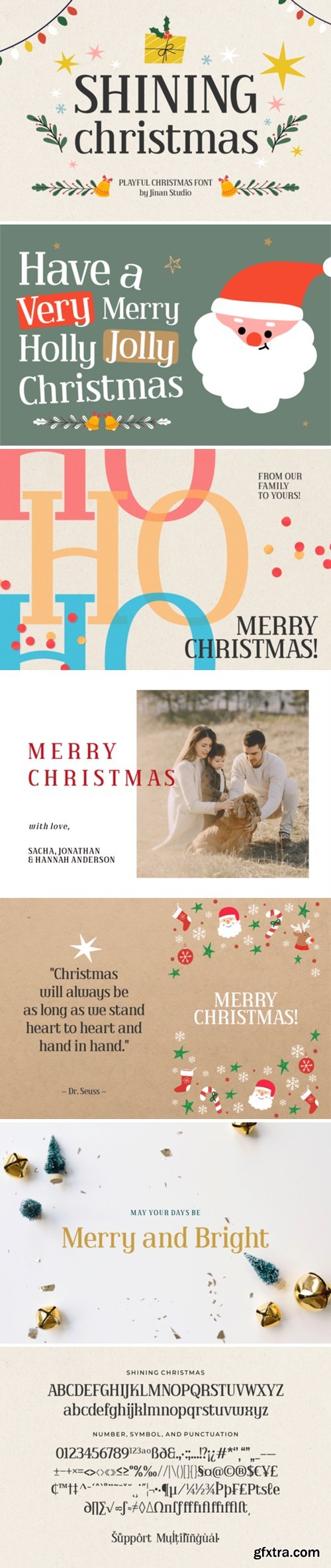
Shining Christmas is a joyful and playful display serif font that embodies the festive spirit of the holiday season. With its bold yet elegant letterforms, this font is perfect for creating stunning Christmas-themed designs, including greeting cards, posters, gift tags, and more. Its cheerful details are complemented by decorative holiday elements, adding a touch of magic to your creations. Let Shining Christmas light up your designs with warmth and charm during this festive time of year!